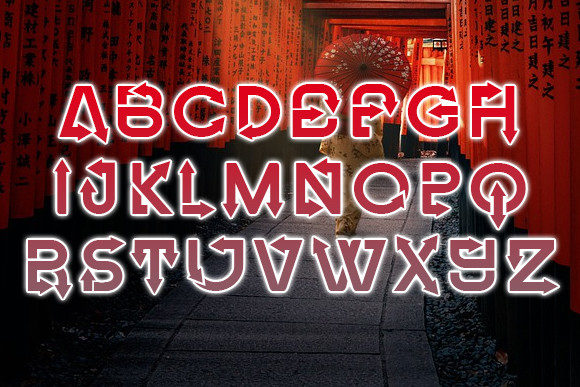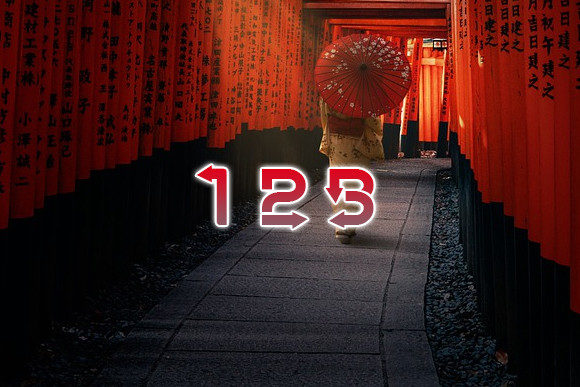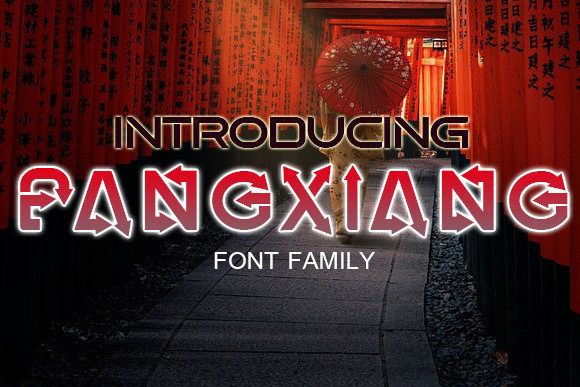
Fangxiang Font: Elevate Your Designs with this Unique Decorative Font
Are you tired of using the same old fonts in your designs? Look no further! Fangxiang is an awesome decorative font family that is packed with arrows, interesting characters, and shapes. This font is perfect for designers and crafters who want to add a touch of uniqueness to their work. In this article, we’ll dive into the features and benefits of Fangxiang Font and explore how it can elevate your designs.
What is Fangxiang Font?
Fangxiang Font is a decorative font family that is designed to add a touch of elegance and sophistication to your designs. The font is filled with a wide range of characters, including arrows, shapes, and symbols, making it perfect for creating visually appealing posters, flyers, and prints. The font is highly versatile and can be used for a variety of design projects, from branding and advertising to packaging and signage.
Key Features of Fangxiang Font
• Unique Characters: Fangxiang Font comes with a wide range of unique characters, including arrows, shapes, and symbols, that can be used to add visual interest to your designs.
• Decorative Style: The font has a decorative style that is perfect for creating eye-catching posters, flyers, and prints.
• Highly Versatile: Fangxiang Font can be used for a variety of design projects, from branding and advertising to packaging and signage.
• Easily Customizable: The font is easily customizable, allowing you to adjust the size, color, and style to suit your design needs.
Benefits of Using Fangxiang Font
So, why should you use Fangxiang Font in your designs? Here are just a few benefits:
• Adds Visual Interest: The unique characters and decorative style of Fangxiang Font can add visual interest to your designs, making them stand out from the crowd.
• Increases Creativity: The font’s versatility and customizability can help increase your creativity and inspire new design ideas.
• Saves Time: With Fangxiang Font, you can create professional-looking designs quickly and easily, saving you time and effort.
• Perfect for Designers and Crafters: The font is perfect for designers and crafters who want to add a touch of uniqueness to their work.
How to Use Fangxiang Font
Using Fangxiang Font is easy! Here are a few tips to get you started:
• Choose the Right Size: Choose a size that is suitable for your design project. You can adjust the size to suit your needs.
• Experiment with Colors: Experiment with different colors to find the one that works best for your design.
• Combine with Other Fonts: Combine Fangxiang Font with other fonts to create a unique and visually appealing design.
• Use for Headings and Titles: Use Fangxiang Font for headings and titles to add a touch of elegance and sophistication to your designs.
In conclusion, Fangxiang Font is an awesome decorative font family that is perfect for designers and crafters who want to add a touch of uniqueness to their work. With its unique characters, decorative style, and high versatility, Fangxiang Font can elevate your designs and help you create visually appealing posters, flyers, and prints. So why not give it a try? Download Fangxiang Font today and take your designs to the next level!